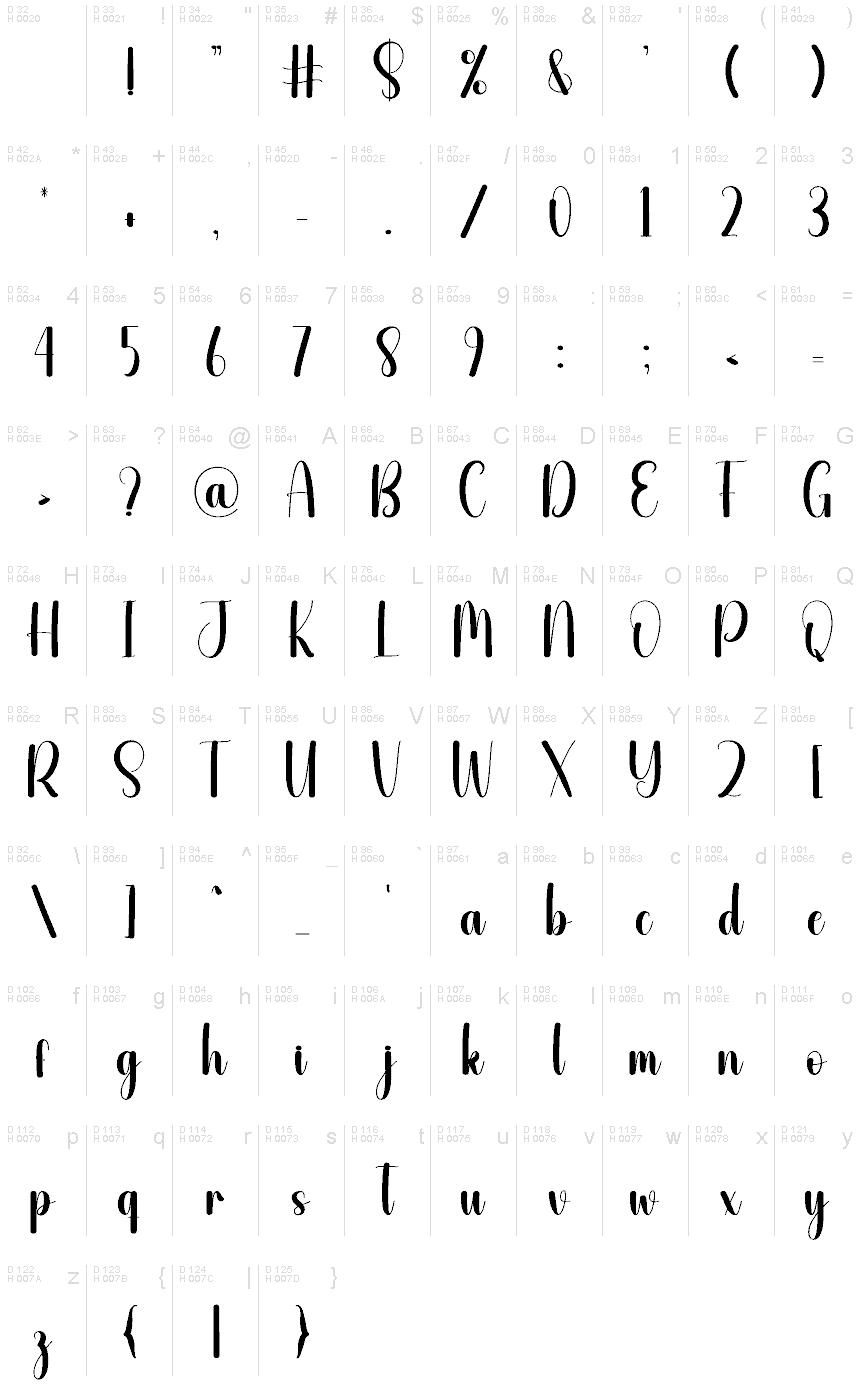
Sailboat
Sailboat font designed by Andi Moz is a free calligraphy font with the expressive qualities of modern script fonts. Elegance holds all its characters together and grants them and the font as a whole a decorative spirit imprinting beauty wherever it lands. For an extra flowing aesthetic, use it to deliver mood whether romantic or otherwise.
All titles designed using this resource are bound to receive proper attention and fair appreciation. A couple of words written for headlines are overbearing since their look overshadows everything else on the page. Get even more expressive when using this resource for logos, posters, or invitations (wedding invites as well).